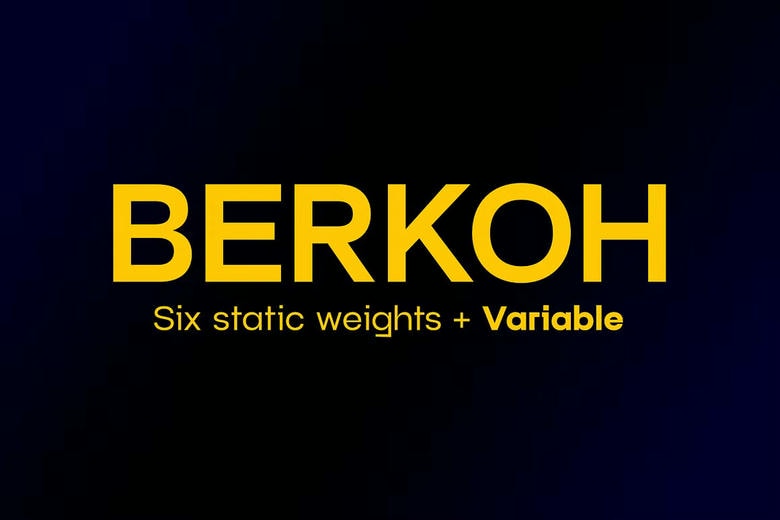
Berkoh Font Family
Berkoh is a contemporary geometric sans serif font collection integrating minimalism and character. Berkoh, with its clear and flexible design, has six different weights available (Thin, Light, Regular, Medium, Bold and Black) and has recently been made a Variable font, meaning that it can have its weight adjusted easily, and that it will provide more typographic control.
The family has greatly extended with more than 500 glyphs which offer wide language coverage, greater typographic adaptability, and a wide array of symbols and alternates to be utilized by professionals.
Berkoh is ideal with its clean lines and elegant curves to brand, editorial design, user interfaces and bold headline typography. The unusual letterforms of the font, particularly the lower case, are both personal and do not diminish the legibility.
Berkoh can be used to create a presentation of a futuristic tech brand, a visionary start up presentation or a modern magazine layout by delivering your message with precision, flexibility and visual effects.
Berkoh Sans Serif Font Family